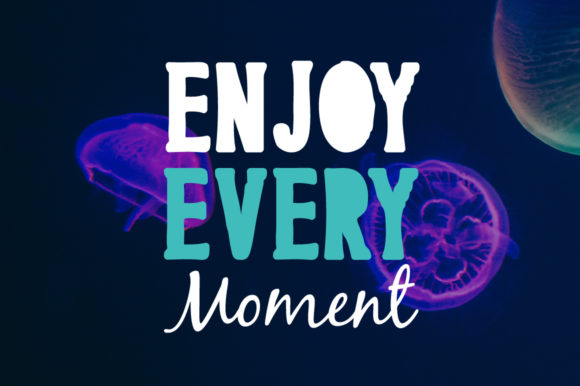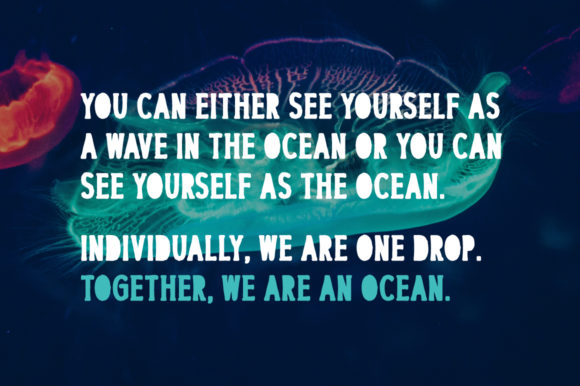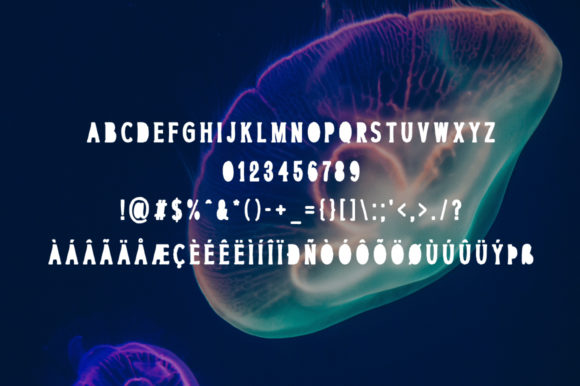
Introduction to Ocean Paradise 2 Font
The Ocean Paradise 2 is a striking display font.
It’s perfectly suited for stationery, logos, t-shirts, papers, print designs, website headers, photo frames, flyers, music covers, posters, image sliders, and much more .
Key Features of Ocean Paradise 2 Font